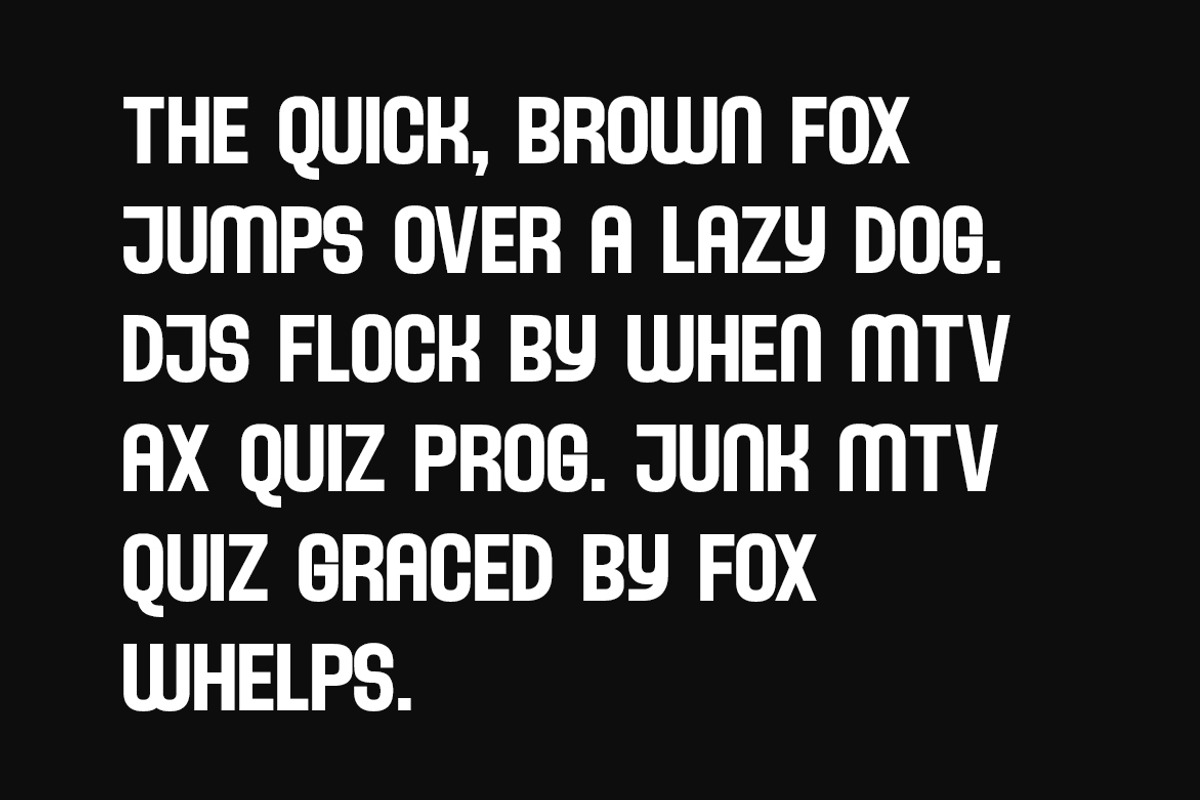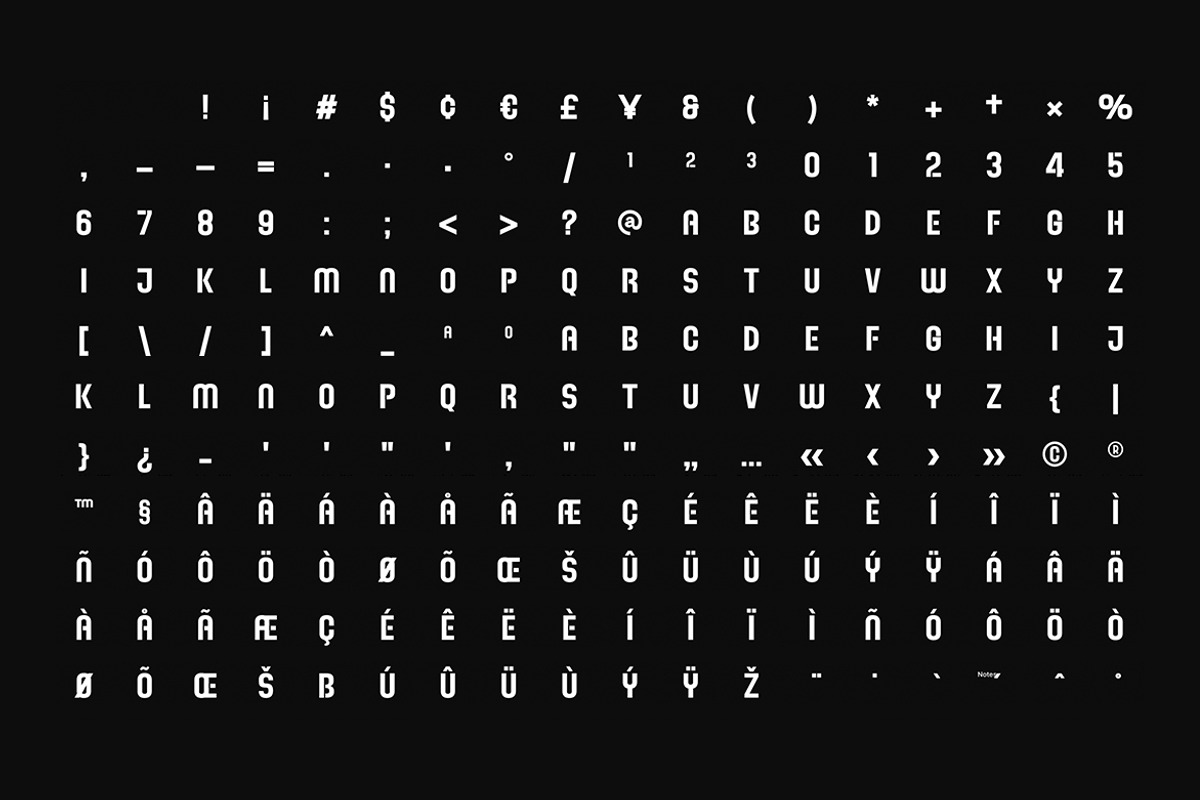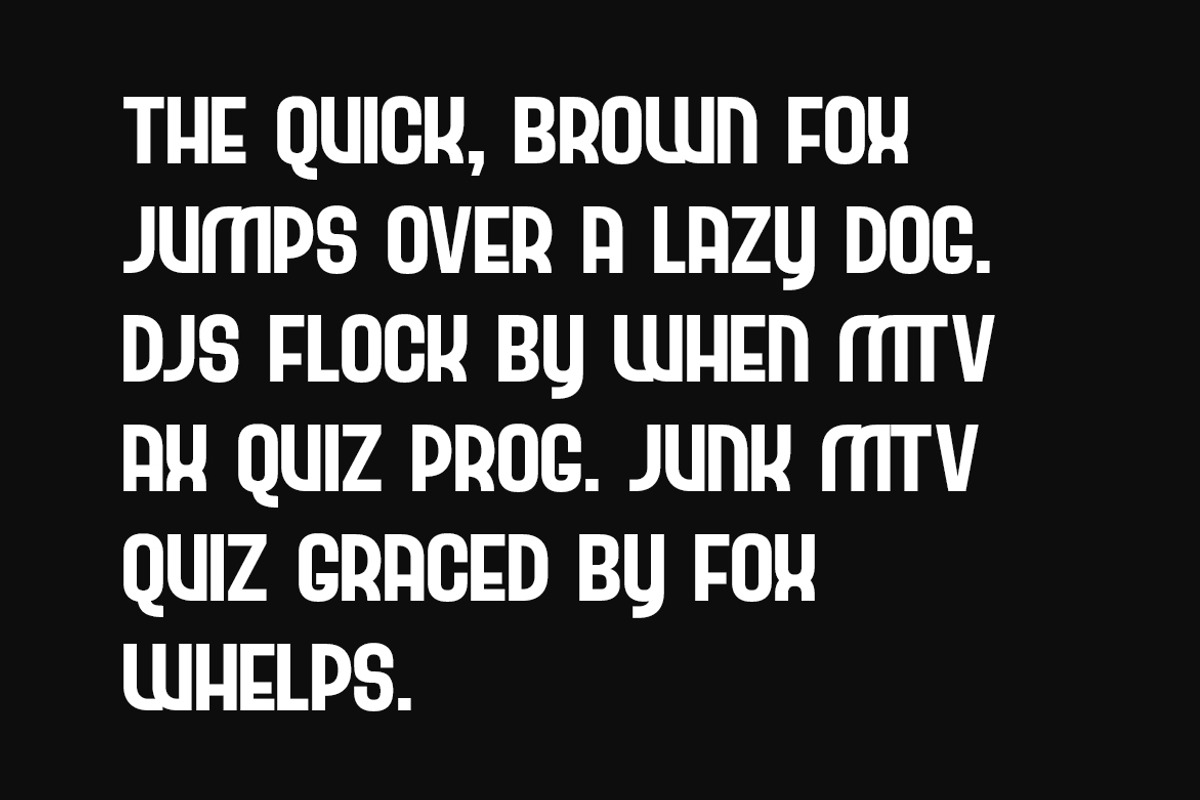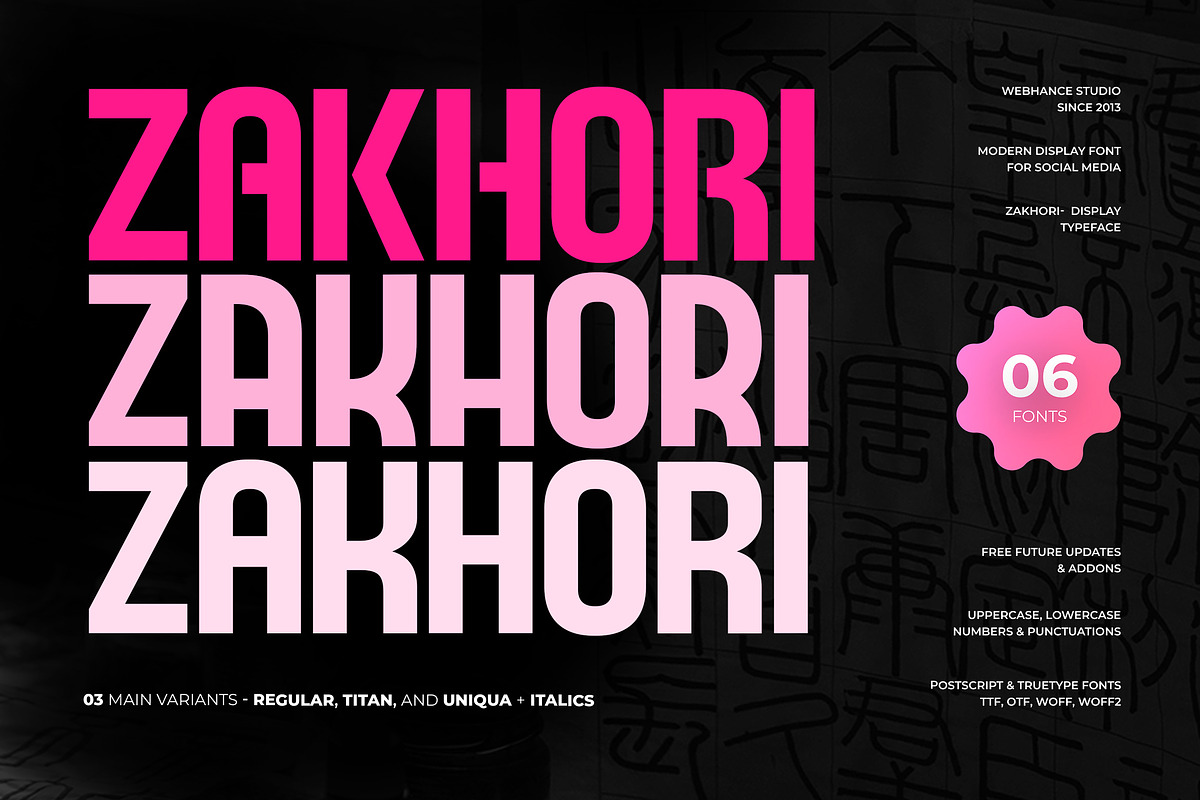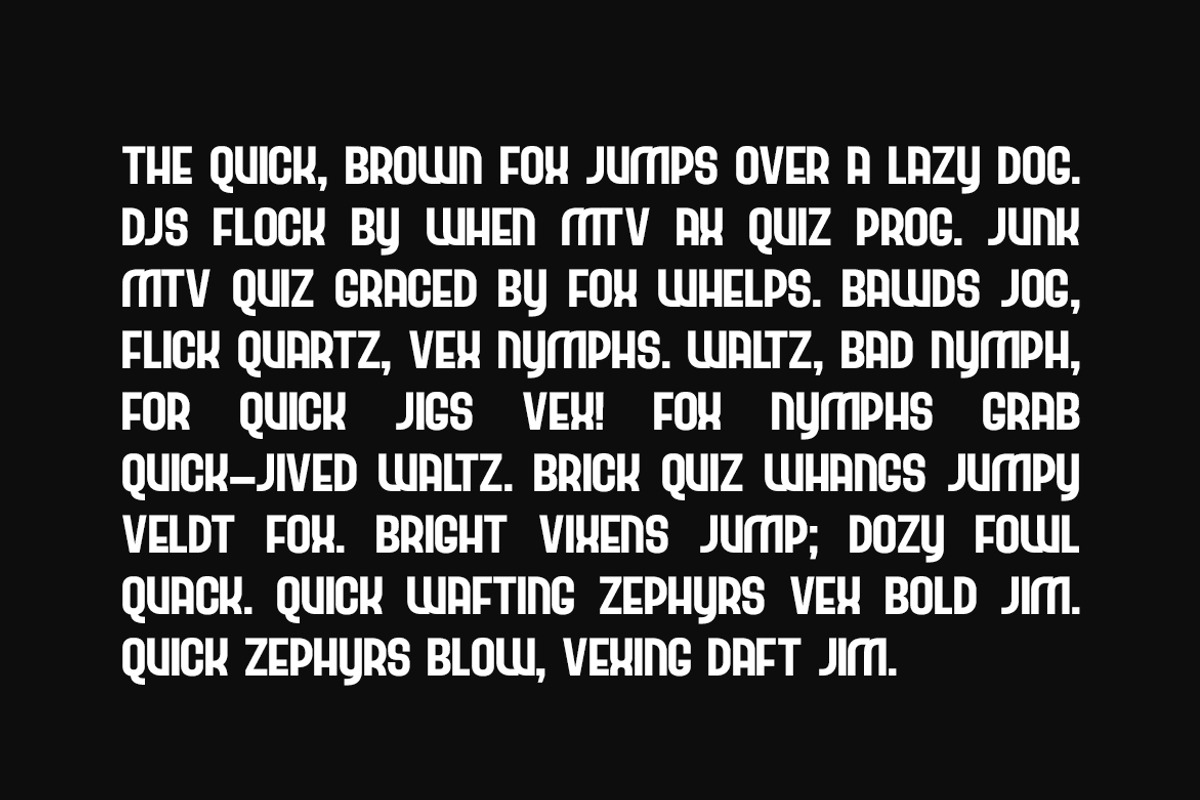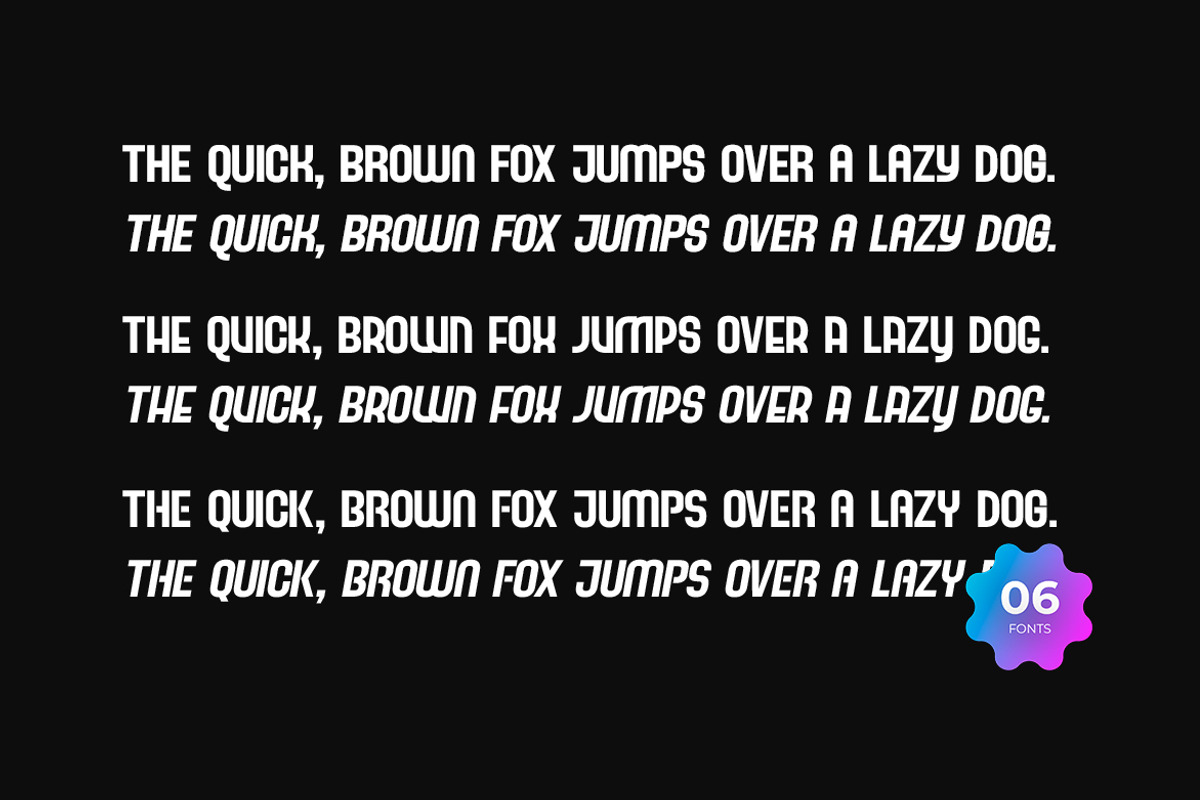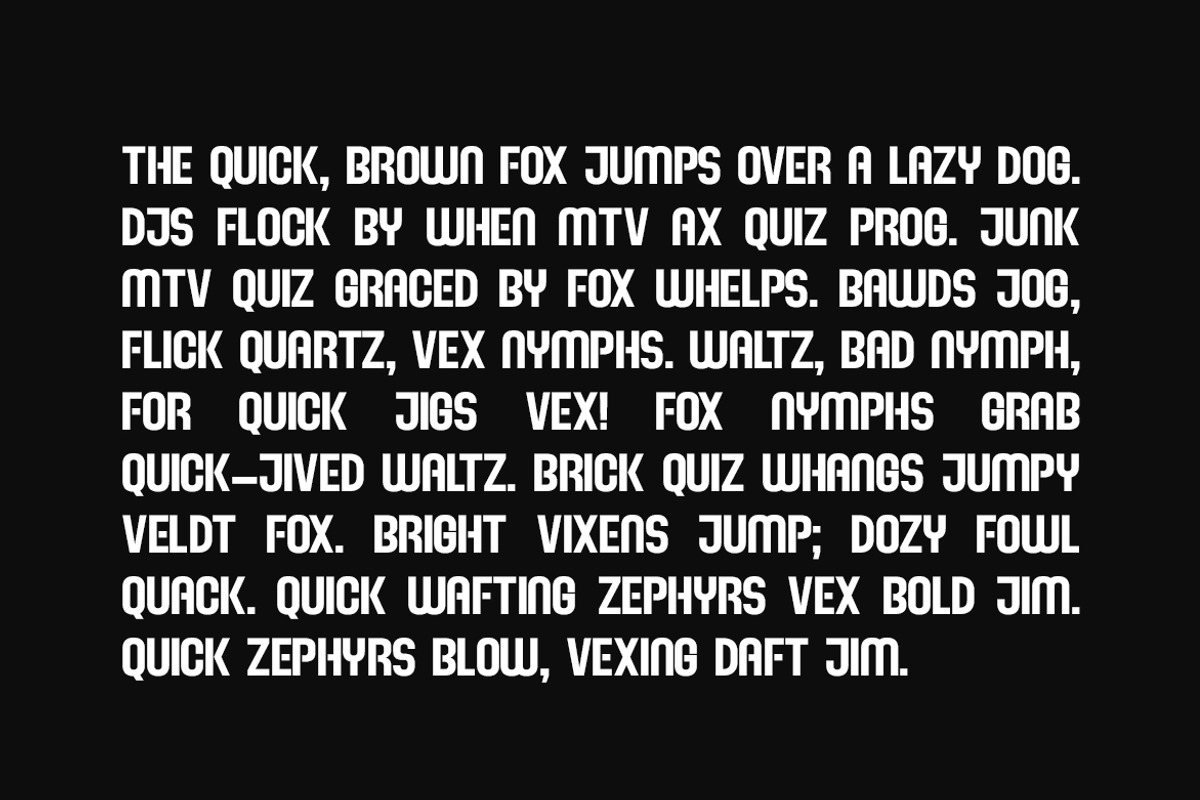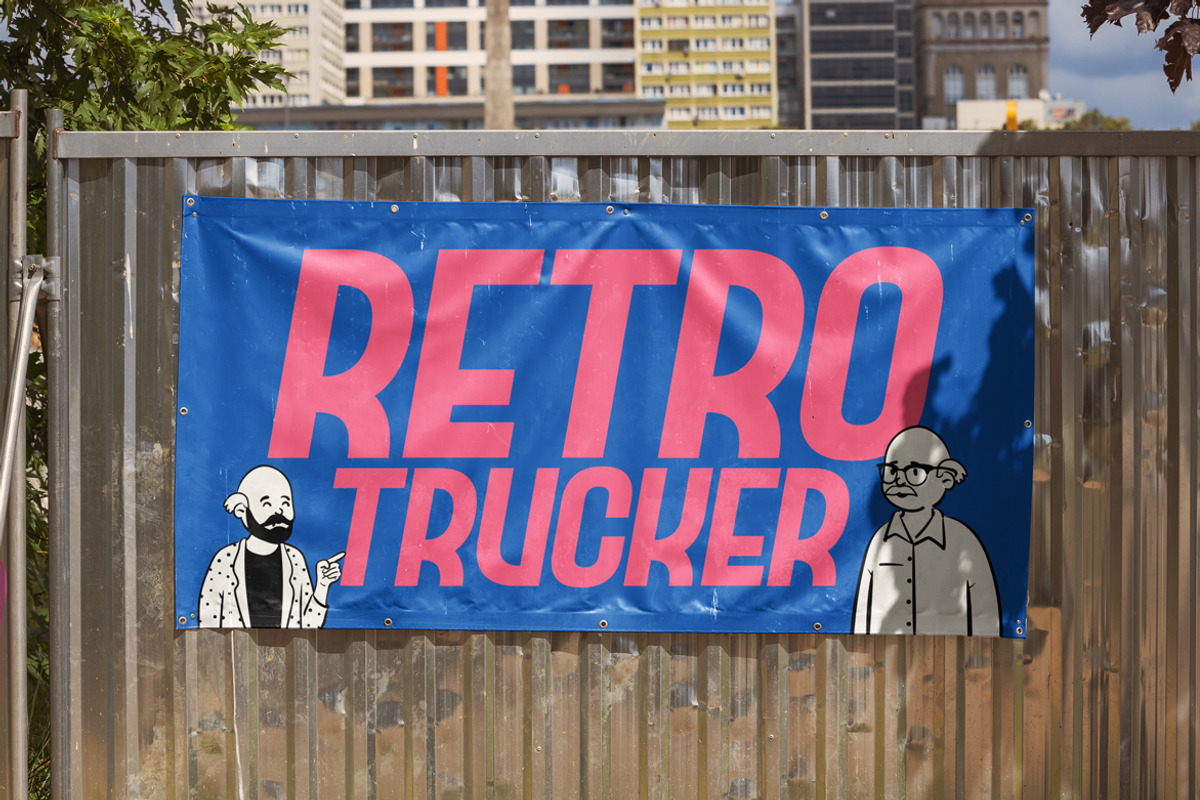
Zakhori - Modern Display Sans-Serif
The Zakhori font family is a bold and creative display typeface crafted to stand out in modern design. With its sharp edges, unique character shapes, and expressive personality, Zakhori is perfect for branding, headlines, posters, packaging, and digital graphics.
This family includes three distinctive variants — Regular, Titan, and Uniqua — each offering its own visual strength. All styles come with matching Italics, giving you a total of 06 fonts to explore endless design possibilities.
It supports multiple languages (137 languages), making it a versatile choice for global projects.